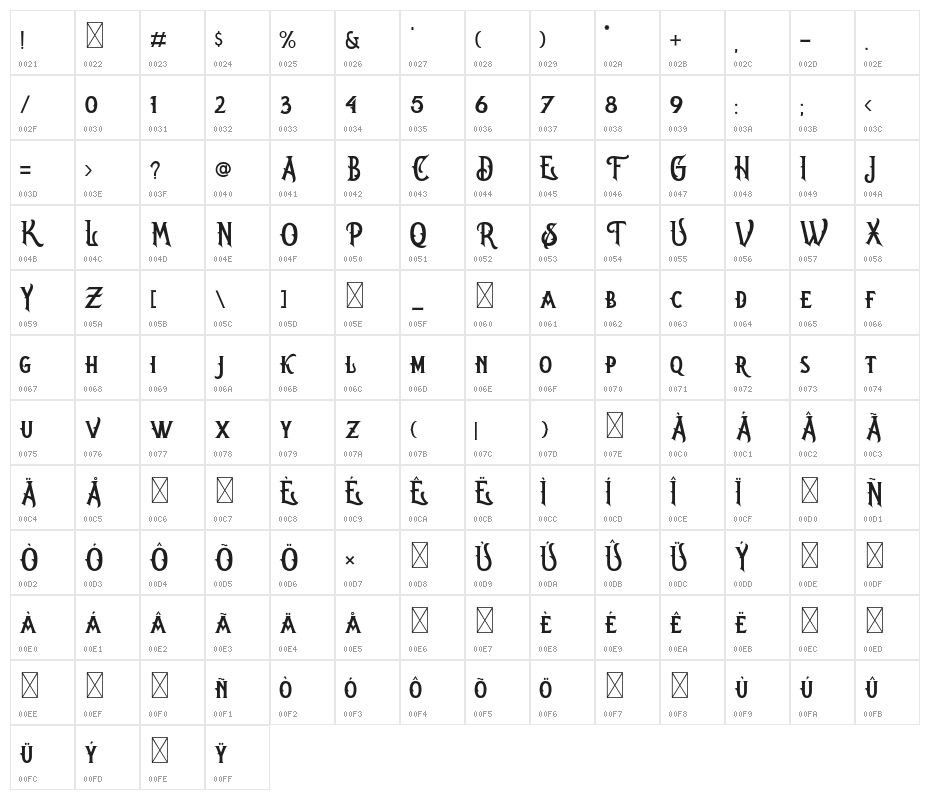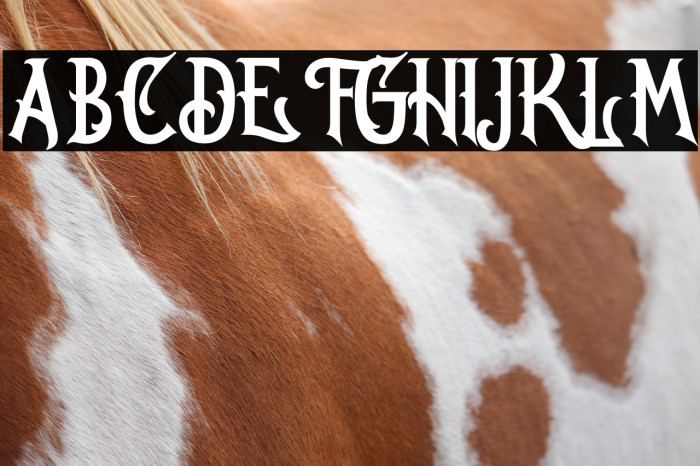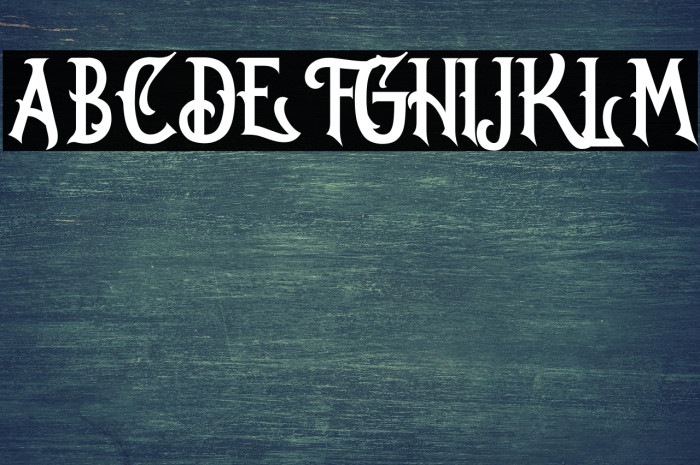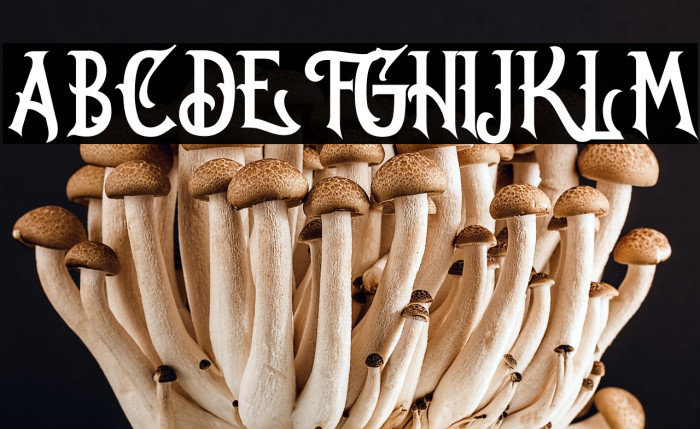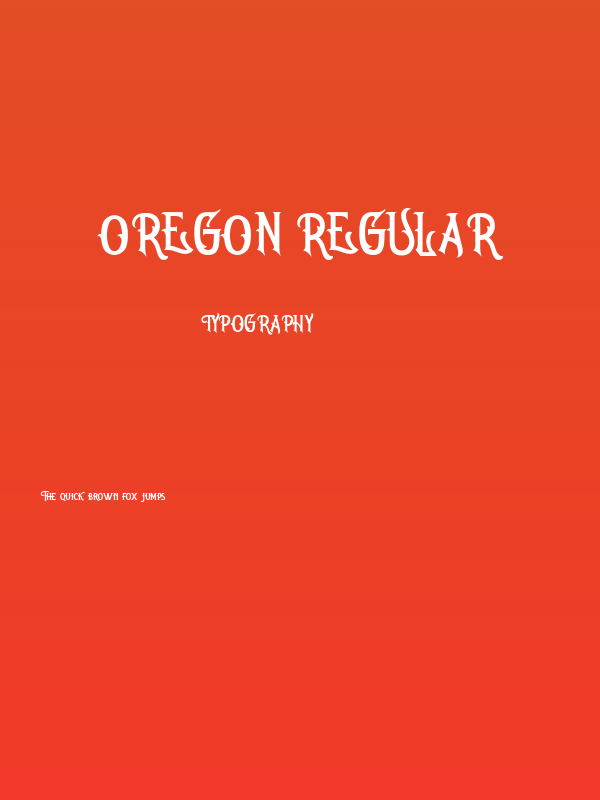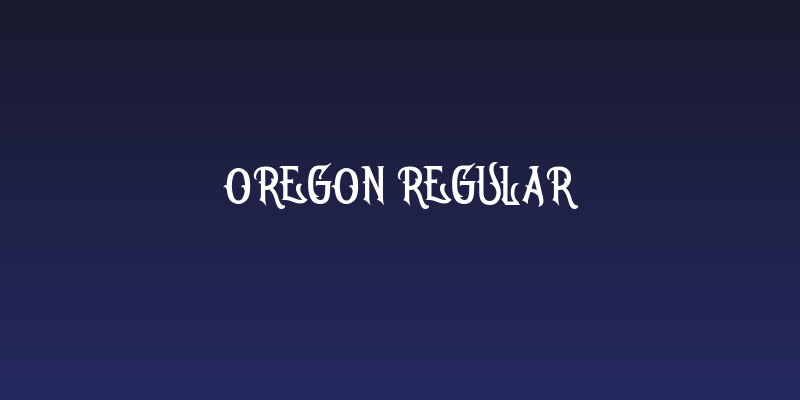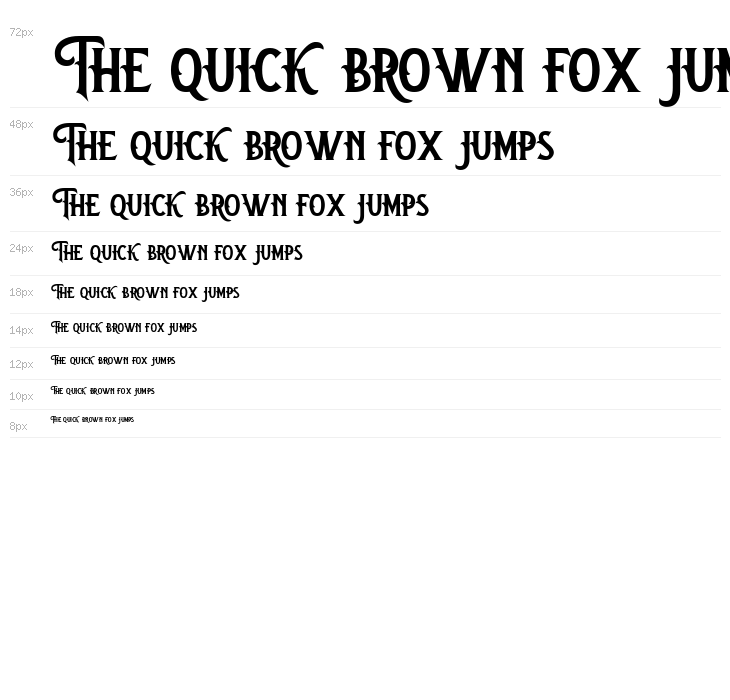
Oregon Regular Font
Oregon Regular Description
This font features a bold and dramatic style with sharp, angular lines and a strong presence. The uppercase letters are particularly striking, with intricate details and a gothic influence that gives them a medieval feel. The lowercase letters maintain the same boldness, ensuring consistency throughout the typeface. Numbers and special characters are designed with the same attention to detail, making them suitable for a variety of uses. The overall design is both decorative and impactful, making it ideal for projects that require a strong visual statement.
| Use Case | Logos, Headlines, Posters |
| Proposed Projects | Ideal for branding, posters, book covers, and any project needing a dramatic and bold typeface. |